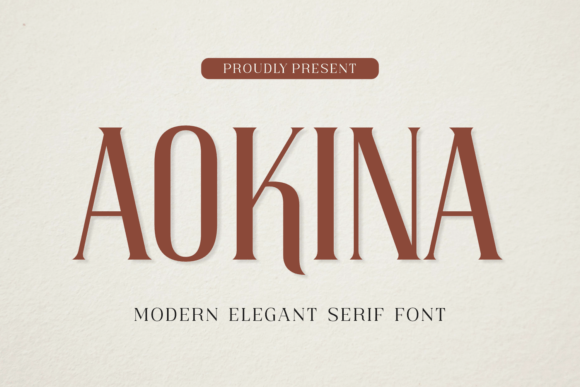
Aokina Font: Elevate Your Design with Timeless Elegance
In the world of typography, few fonts manage to strike a balance between classic sophistication and modern flair. Aokina Font is one such exceptional typeface that seamlessly blends refined elegance with contemporary charm. This beautifully crafted serif font is designed to bring a touch of luxury and sophistication to any design project, making it an ideal choice for branding, editorial designs, invitations, logos, and more.
The Essence of Aokina Font
Aokina is more than just a font; it’s an experience. Its creation is rooted in the desire to produce a typeface that exudes elegance, poise, and a sense of refinement. Every letterform in Aokina is meticulously designed to showcase graceful curves and sharp serifs, creating a harmonious blend that catches the eye and elevates the design.
The font’s design philosophy revolves around achieving a perfect balance between readability and aesthetic appeal. The result is a typeface that not only looks stunning but also ensures clarity and legibility across various applications and mediums.
Key Features of Aokina Font
- Timeless Beauty: Aokina’s classic serif design ensures that it remains timeless, avoiding the pitfalls of trends that can quickly become outdated.
- Modern Sophistication: Despite its classic roots, Aokina incorporates modern elements that make it highly versatile and suitable for contemporary design projects.
- Luxurious Feel: The combination of graceful curves and sharp serifs gives Aokina a luxurious and high-end feel, perfect for designs that aim to convey elegance and sophistication.
- Versatility: Aokina is incredibly versatile, making it suitable for a wide range of applications, from branding and editorial designs to invitations and logos.
- Readability: One of Aokina’s standout features is its exceptional readability, ensuring that your message is conveyed clearly and effectively.
Applications of Aokina Font
Aokina’s versatility is one of its most compelling attributes, making it suitable for various design projects. Here are some of the key areas where Aokina truly shines:
- Branding: Aokina can serve as a cornerstone for brand identity, especially for businesses aiming to project an image of elegance and sophistication.
- Editorial Designs: For magazines, newspapers, and digital publications, Aokina offers a refined look that enhances the reading experience.
- Invitations: Whether it’s a wedding invitation, corporate event, or product launch, Aokina can add a touch of luxury and class.
- Logos: For brands that wish to convey a sense of tradition combined with modernity, Aokina can be a valuable asset.
Why Choose Aokina Font?
In a crowded marketplace, standing out is crucial. Aokina offers several advantages that make it a preferred choice for designers and businesses alike:
- Unique Aesthetic: Aokina’s distinctive look sets it apart from more commonly used fonts, ensuring that your designs have a unique edge.
- High Readability: In an era where digital content dominates, Aokina’s readability ensures that your message is communicated effectively across all platforms.
- Flexibility: Aokina can be used in both print and digital mediums, offering flexibility for a wide range of projects.
Aokina Font is a remarkable typeface that brings together the best of both worlds: the timeless elegance of classic serif fonts and the modern sophistication required by contemporary design. Its luxurious feel, versatility, and exceptional readability make it an invaluable tool for designers and businesses looking to elevate their projects.
Whether you’re crafting a brand identity, designing an editorial piece, creating invitations, or developing a logo, Aokina offers the perfect blend of style and functionality. By choosing Aokina, you’re not just selecting a font; you’re embracing a design philosophy that prioritizes elegance, sophistication, and effective communication.
As you explore the possibilities with Aokina Font, you’ll discover how this refined and elegant typeface can transform your designs, making them more captivating, luxurious, and memorable. Aokina is not just a font; it’s a statement of style and a commitment to excellence in design.